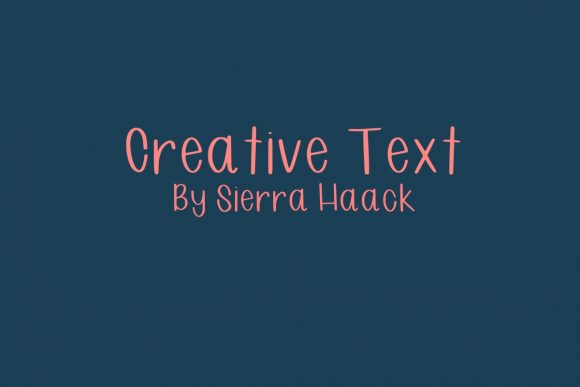
Creative Text Font: Elevate Your Craft Projects with a Playful Handwritten Style
Are you looking for a unique and authentic handwritten font to add a personal touch to your craft projects? Look no further than Creative Text, a playful handwritten font that is perfect for creating a distinctive look. In this article, we’ll explore the features and benefits of Creative Text, and how it can be used to elevate your craft projects.
What is Creative Text Font?
Creative Text is a handwritten font that includes the entire alphabet (lowercase and capitals), numbers 0-9, and a few punctuation marks. This font is designed to mimic the look of handwritten text, with a playful and carefree style that is perfect for a variety of craft projects. Whether you’re creating a handmade card, a DIY sign, or a customized gift, Creative Text is the perfect choice.
Key Features of Creative Text Font
- Entire Alphabet: Creative Text includes the entire alphabet, with both lowercase and capital letters.
- Numbers 0-9: The font also includes numbers 0-9, making it perfect for creating titles, headings, and other numerical elements.
- Punctuation Marks: A selection of punctuation marks is also included, allowing you to add the finishing touches to your craft projects.
- Playful Handwritten Style: Creative Text has a playful and handwritten style that is perfect for creating a unique and authentic look.
Benefits of Using Creative Text Font
There are many benefits to using Creative Text for your craft projects. Here are just a few:
Authentic Handwritten Look
Creative Text allows you to create an authentic handwritten look, without the need for hours of practice or expensive calligraphy classes. The font is designed to mimic the look of handwritten text, with a natural and carefree style that is perfect for a variety of craft projects.
Easy to Use
Perfect for a Variety of Craft Projects
Creative Text is perfect for a variety of craft projects, including:
- Handmade Cards: Add a personal touch to your handmade cards with Creative Text.
- DIY Signs: Create a unique and eye-catching sign with Creative Text.
- Customized Gifts: Add a personal message to your gifts with Creative Text.
- Journaling: Use Creative Text to add a decorative touch to your journal pages.
Tips for Using Creative Text Font
Here are a few tips for getting the most out of Creative Text:
Experiment with Different Sizes and Colors
Don’t be afraid to experiment with different sizes and colors of Creative Text. The font looks great in a range of sizes and colors, from small and subtle to large and bold.
Combine with Other Fonts
Creative Text looks great when combined with other fonts. Try pairing it with a bold font for a striking contrast, or with a script font for a more elegant look.
Use for Headings and Titles
Creative Text is perfect for headings and titles. Use it to add a decorative touch to your craft projects and make them stand out.
Creative Text is a playful handwritten font that is perfect for adding a personal touch to your craft projects. With its entire alphabet, numbers 0-9, and punctuation marks, Creative Text has everything you need to create a unique and authentic look. Whether you’re a seasoned crafter or just starting out, Creative Text is a great choice for anyone looking to elevate their craft projects.